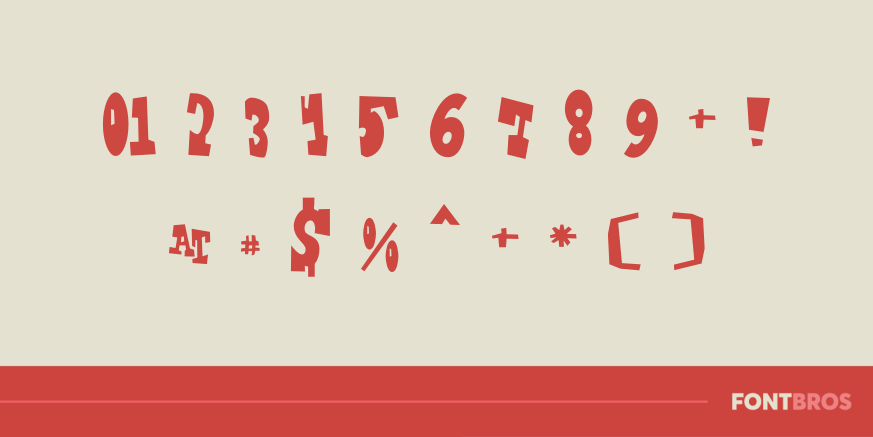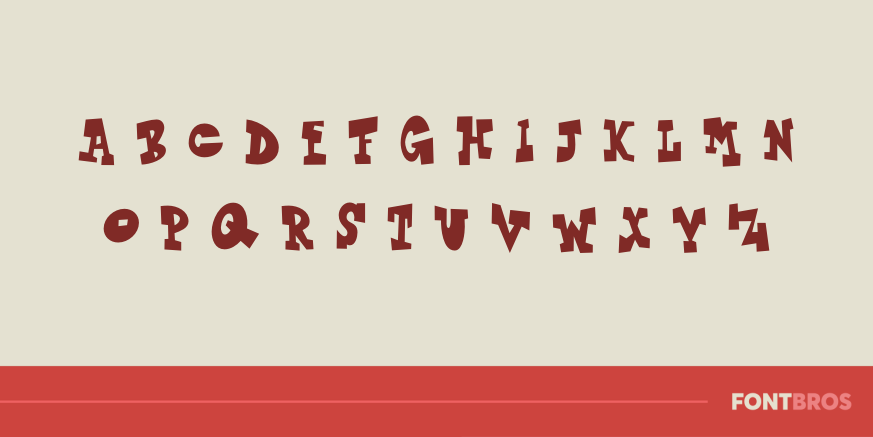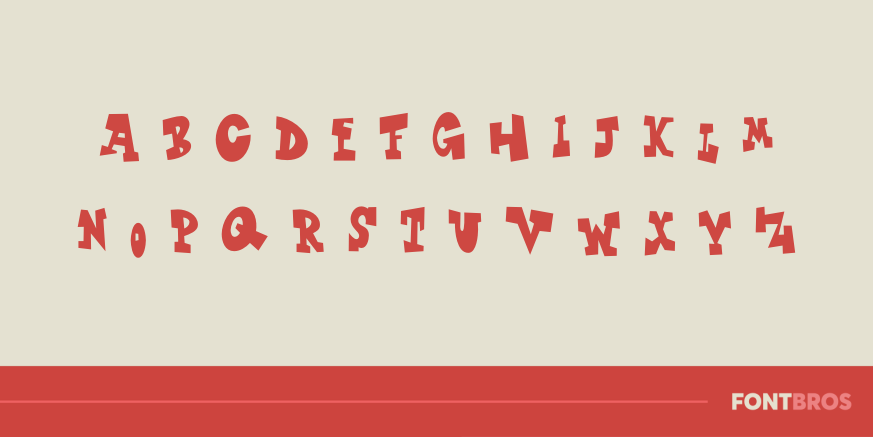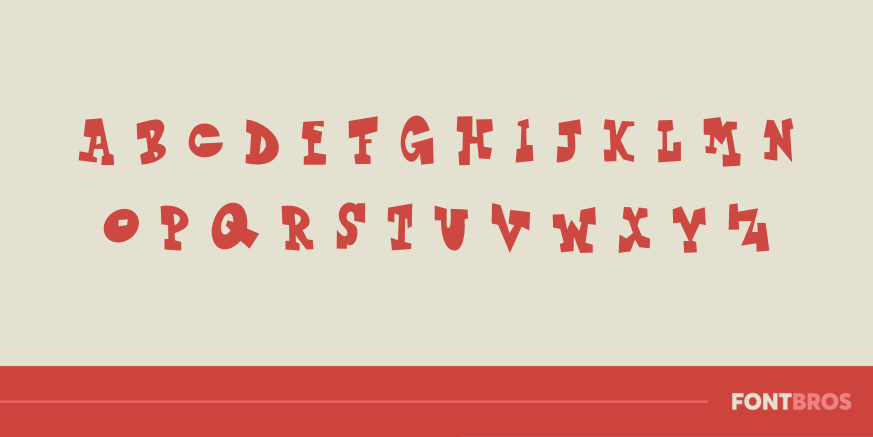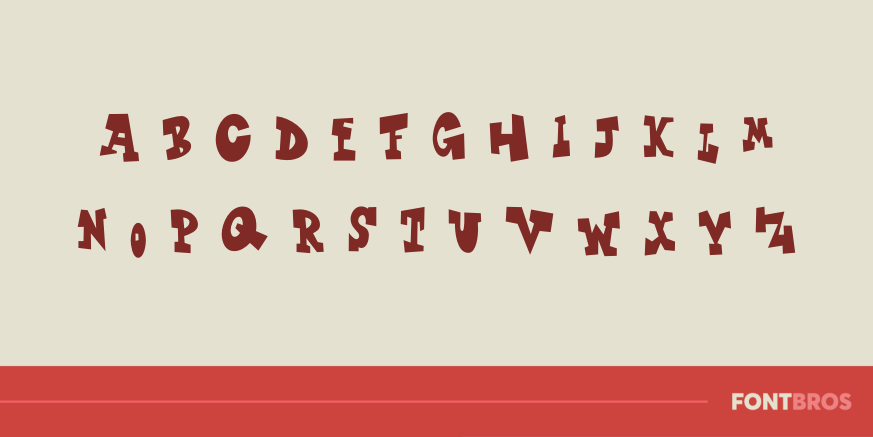
Finer Diner Uptown
Font Family by Font Diner
When you're looking for a little more sophistication, Finer Diner Uptown has just what you're craving! Like a soaring cartoon skyscraper loaded with serifs when the mood is right.